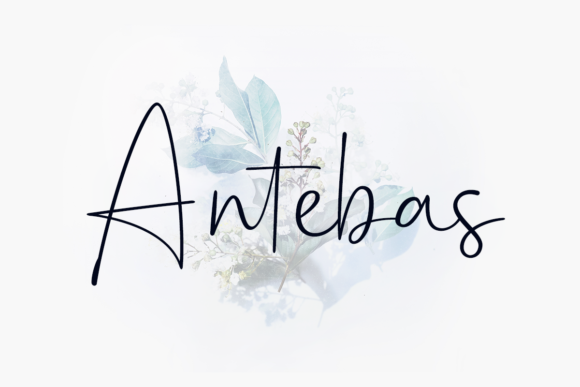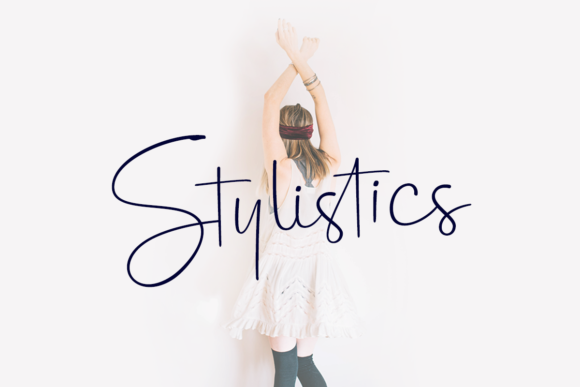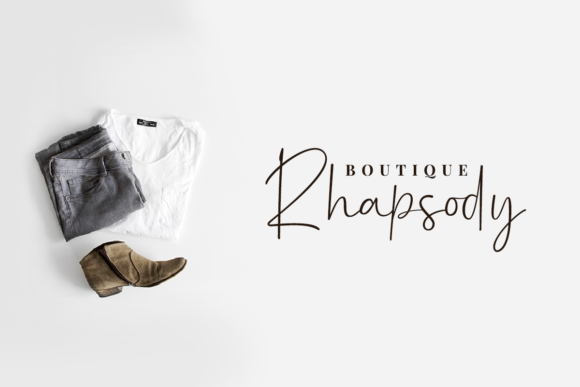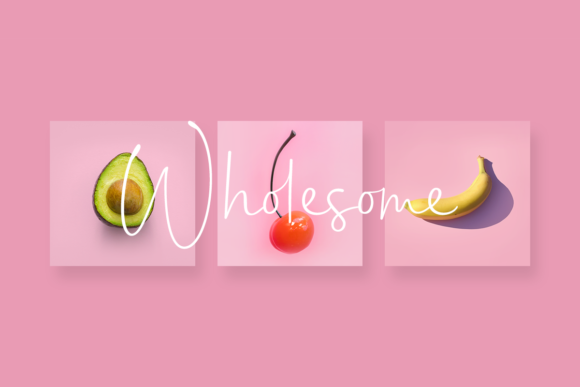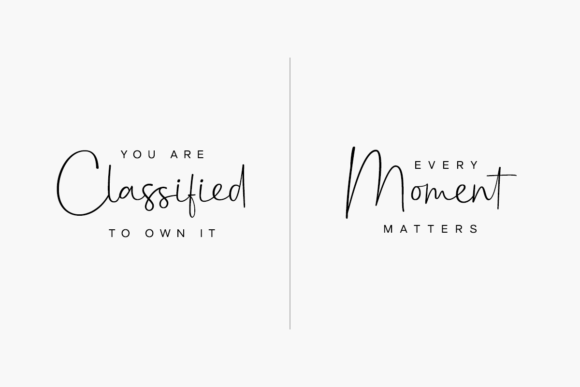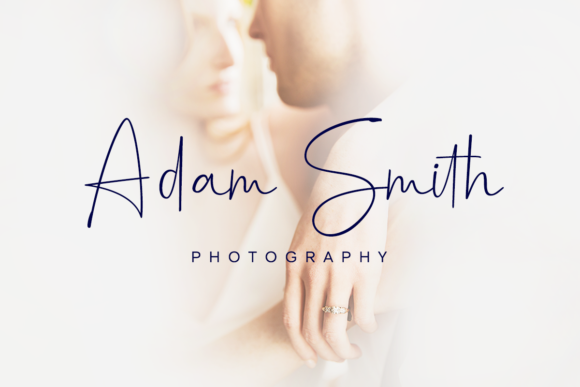
Antebas Font
About Antebas Font
Antebas is a smooth, casual handwritten font with slightly different letters for an authentic feel. Its friendly style makes this font a great choice for apparel designs, labels, photography, watermarks, and other creative projects!